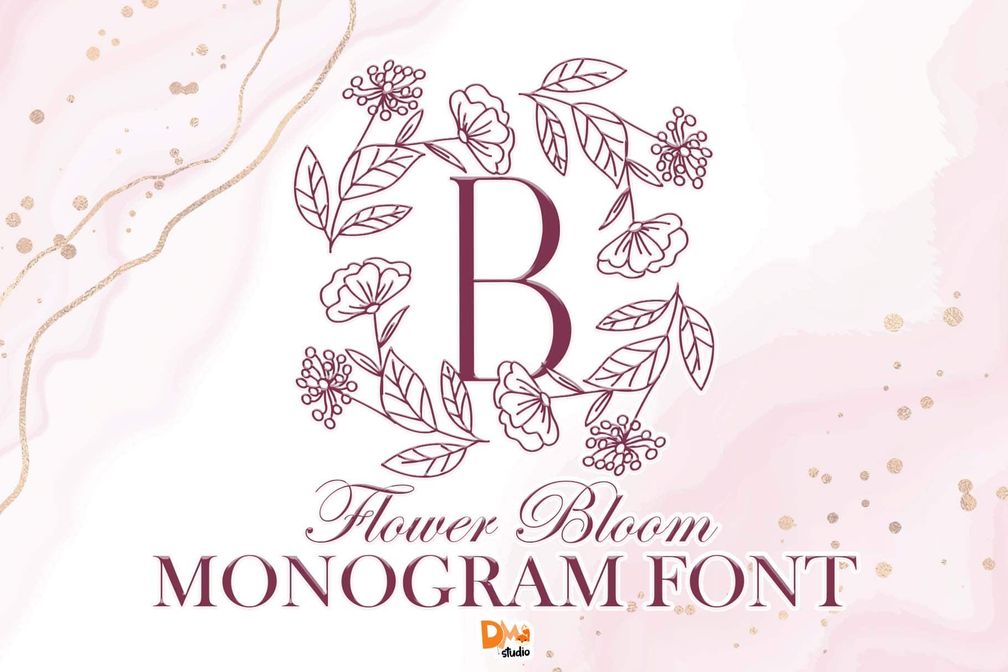
Flower Bloom Monogram
Flower Bloom Monogram – Elegant Floral Monogram Font
Flower Bloom Monogram is a beautifully designed typeface featuring intricate floral elements woven into each letter. This decorative and sophisticated font is perfect for wedding invitations, luxury branding, personalized stationery, boutique packaging, and artistic designs. With its delicate floral details, it adds a refined and ornamental touch to any project.
✔ Elegant Floral Monogram Design – Each letter is embellished with hand-drawn floral elements.
✔ Perfect for Elegant & Luxury Projects – Ideal for wedding stationery, logos, branding, and personalized gifts.
✔ Timeless & Ornamental Aesthetic – Combines classic monogram style with floral elegance.